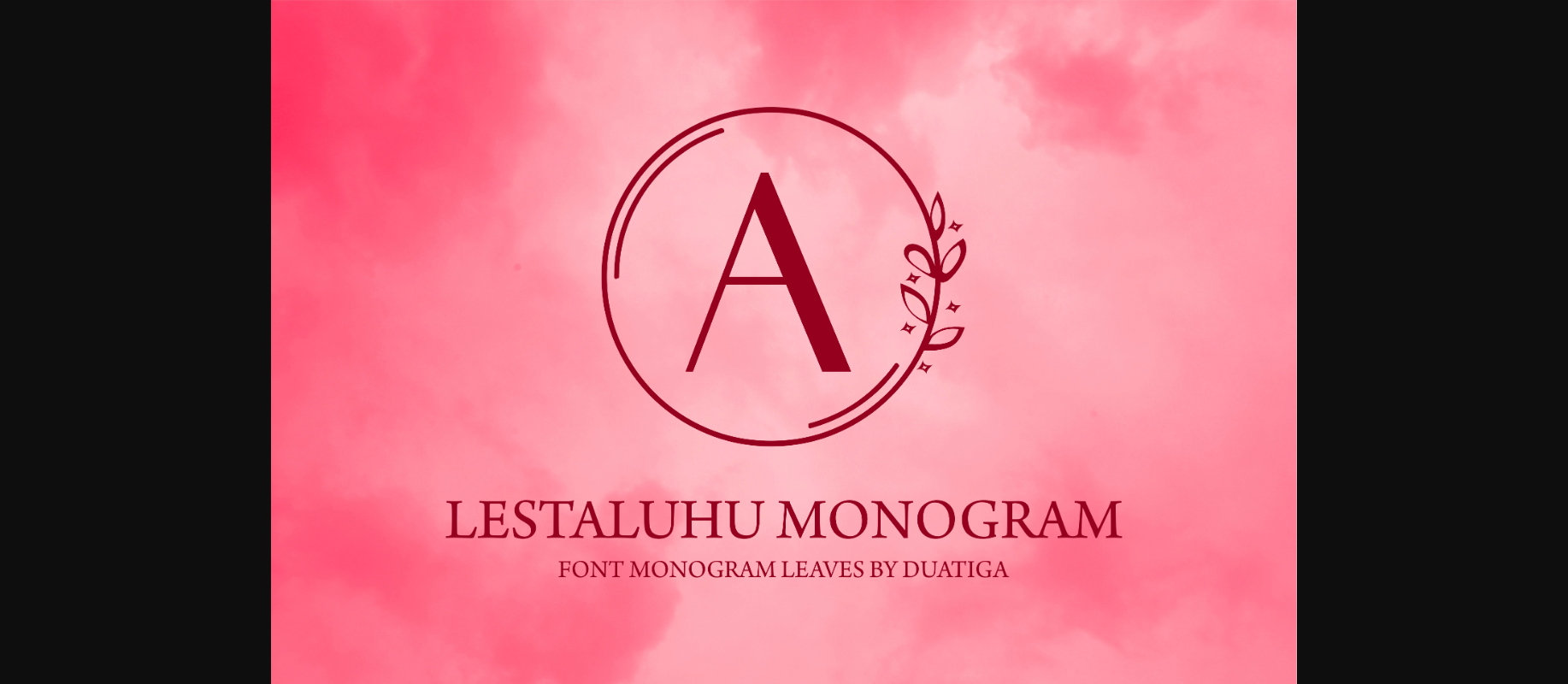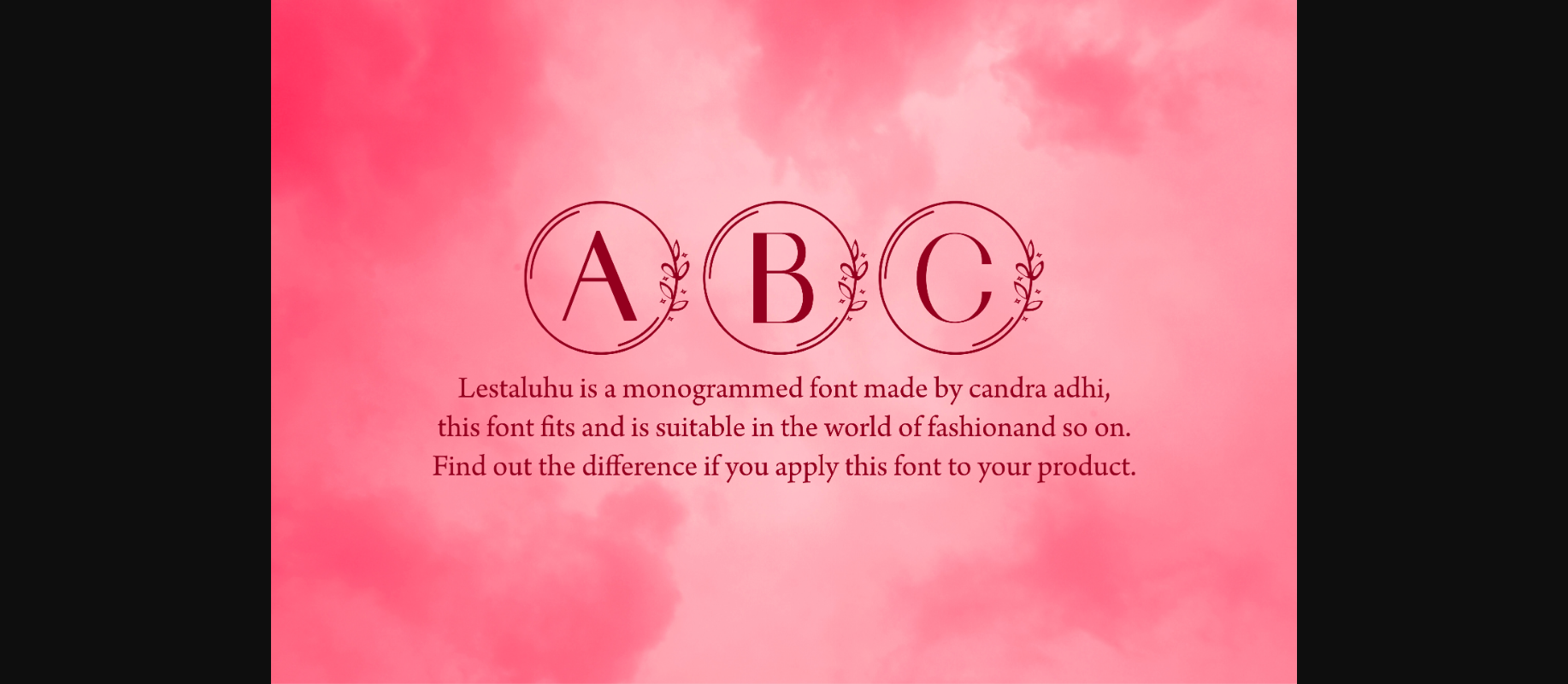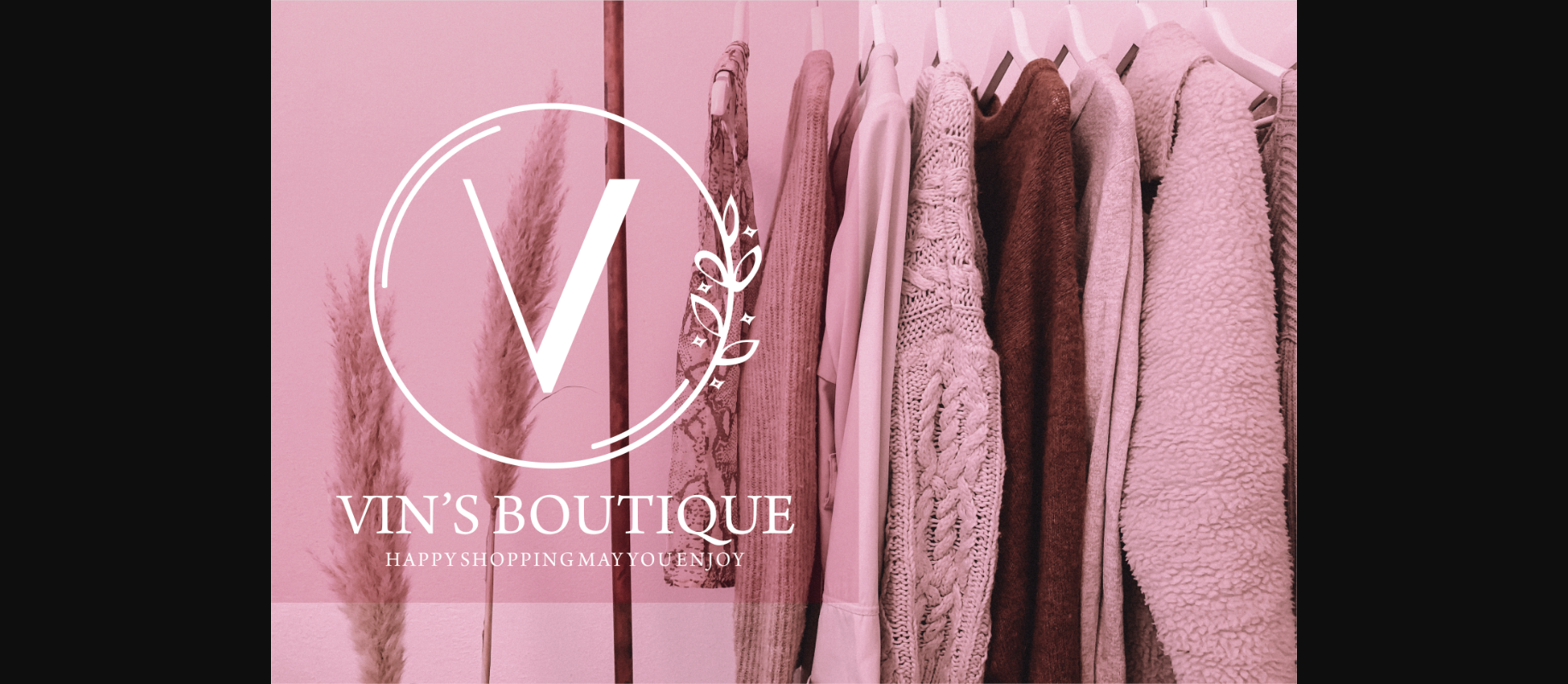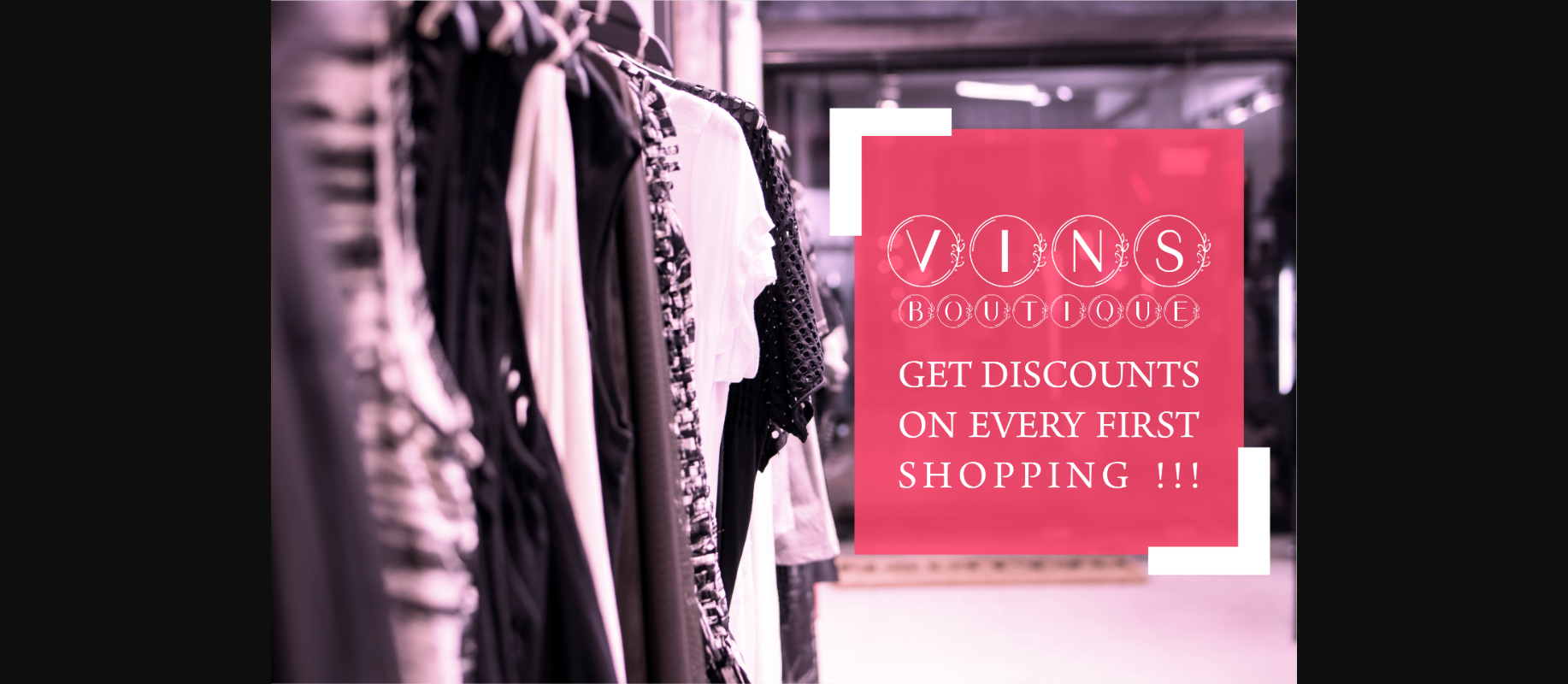
About Lestaluhu Font
Lestaluhu is a bold and elegant decorative font, featuring lovely flowers as ornaments. It looks stunning on wedding invitations, thank you cards, quotes, greeting cards, logos, business cards and every other design which needs a personalized touch.